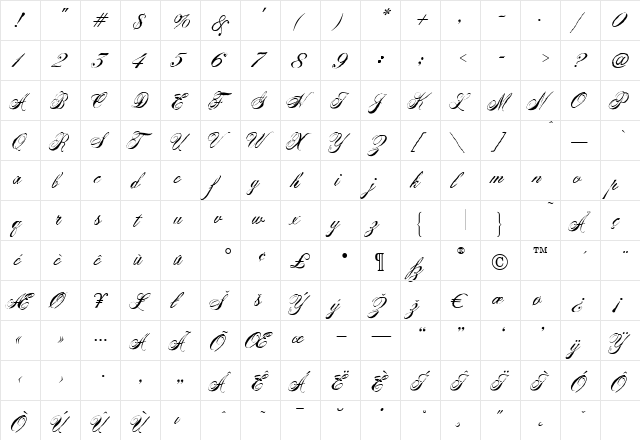
VirginiaAntique Regular
| Foundry | Digitized by Dan X. Solo. Software \ by Dover Publications, Inc |
Design Context for VirginiaAntique Typeface
VirginiaAntique has the warm character of retro typography — evoking diners, record sleeves, and the golden age of print advertising.
Font Pairing: Combine VirginiaAntique with a simple slab or neutral sans — period-accurate companions reinforce the vintage feel without competing for attention.
Pro Tip: Lean into VirginiaAntique's period character by pairing it with aged paper textures, muted colour palettes, and vintage illustration styles.